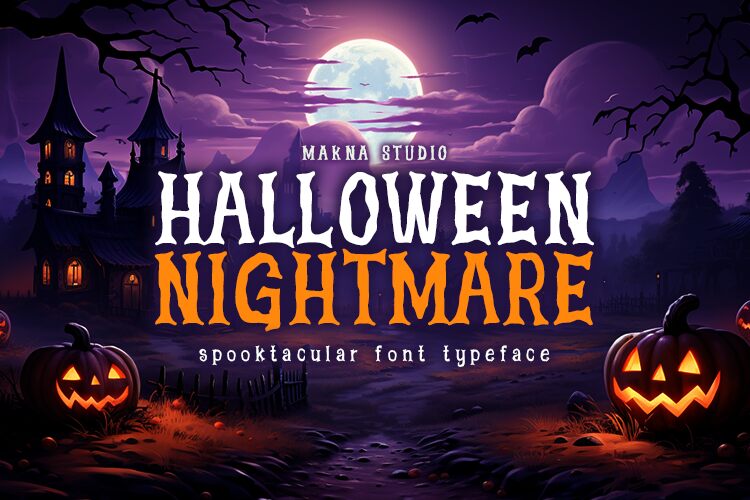
“Halloween Nightmare” is a spooktacular holiday font designed by Makna Studio. It features a halloween style with its jagged edges, twisted letters, and creepy symbols. This semi-condensed font typeface is perfect for adding a chilling and eerie touch to your Halloween-themed projects.
Whether you're creating bone-chilling posters, haunted house flyers, spooky invitations, or other Halloween-related designs, this font will unleash the terror and give your text a frightening makeover.
Get ready to bring the spirit of Halloween to life with the chillingly captivating “Halloween Nightmare” font typeface!